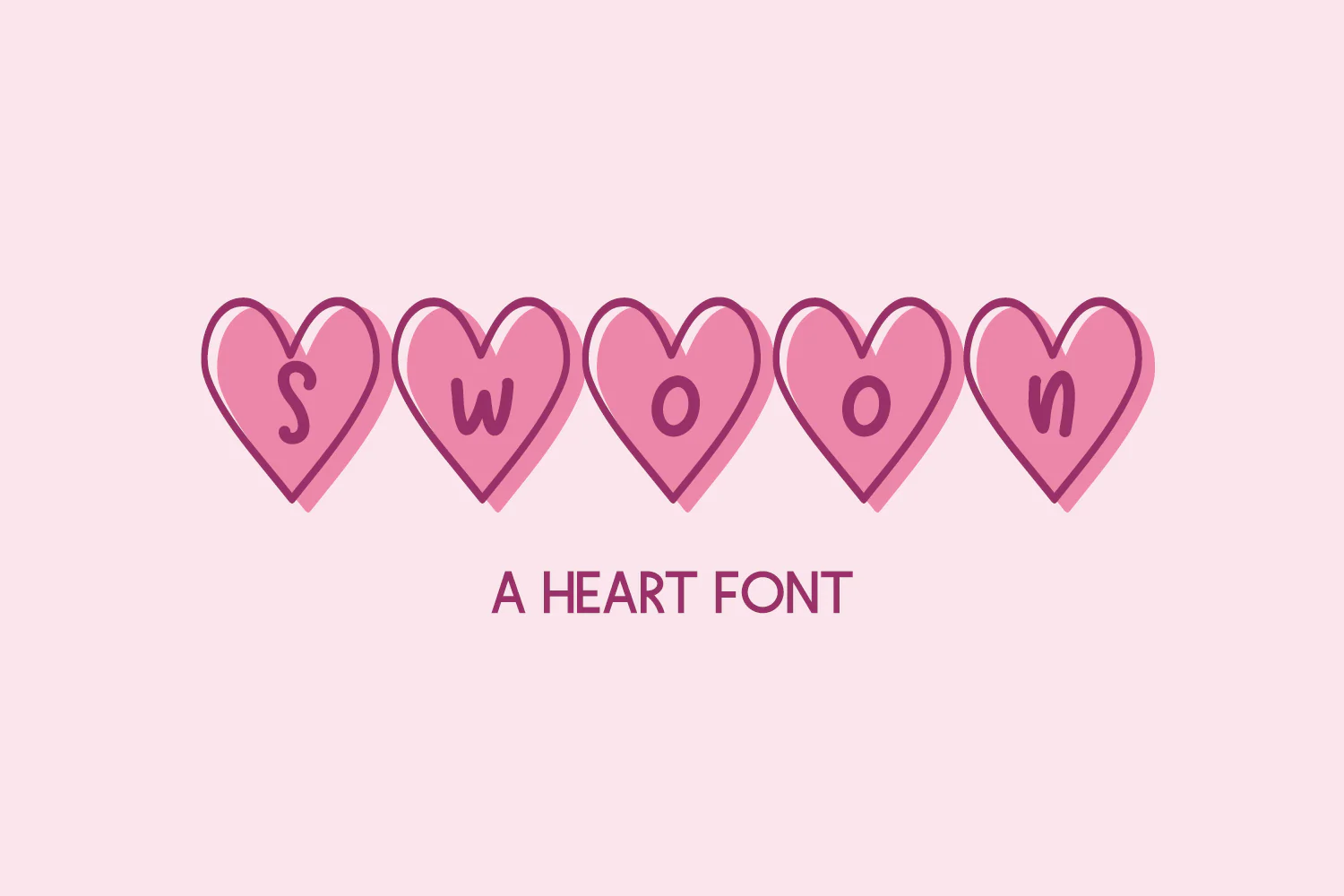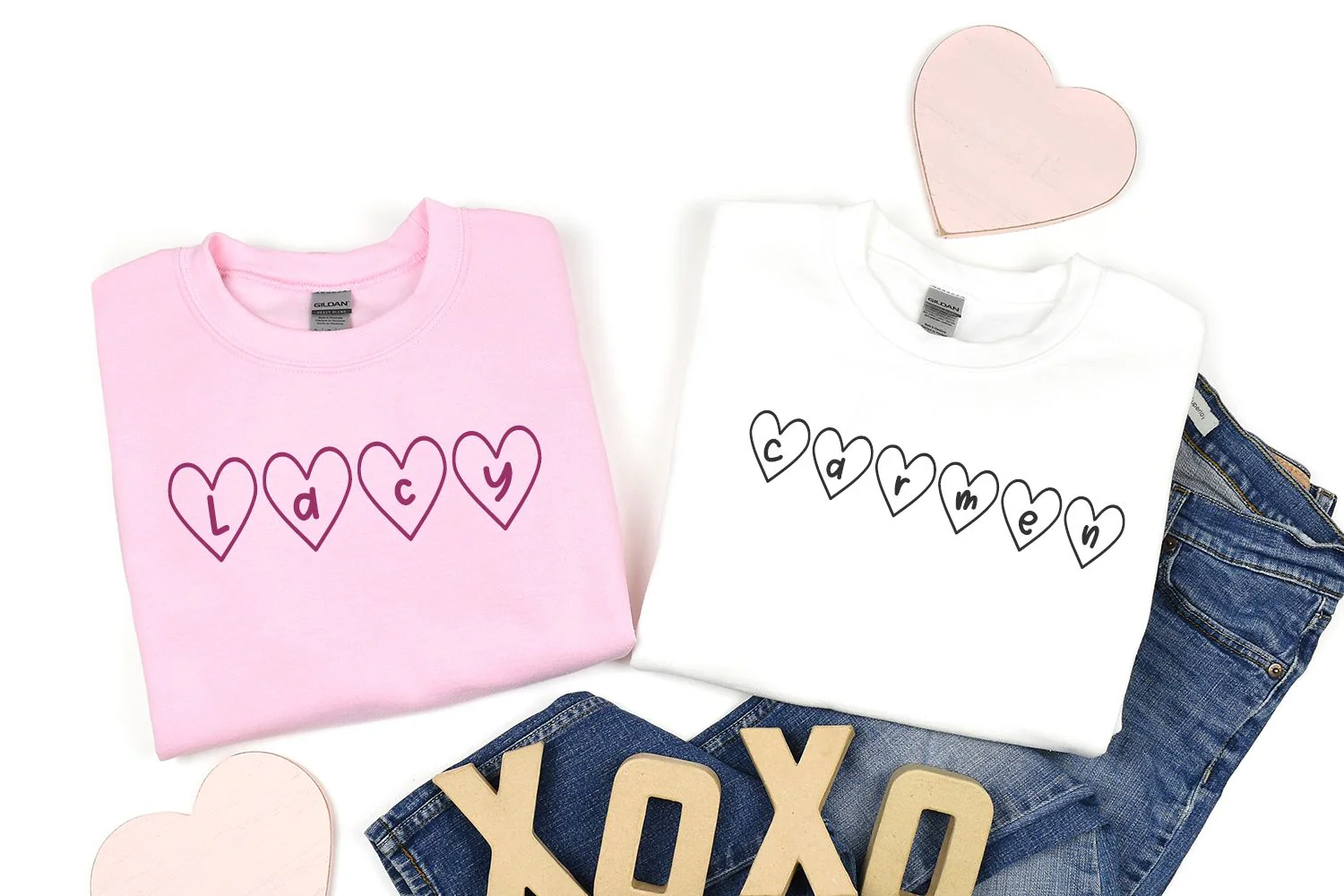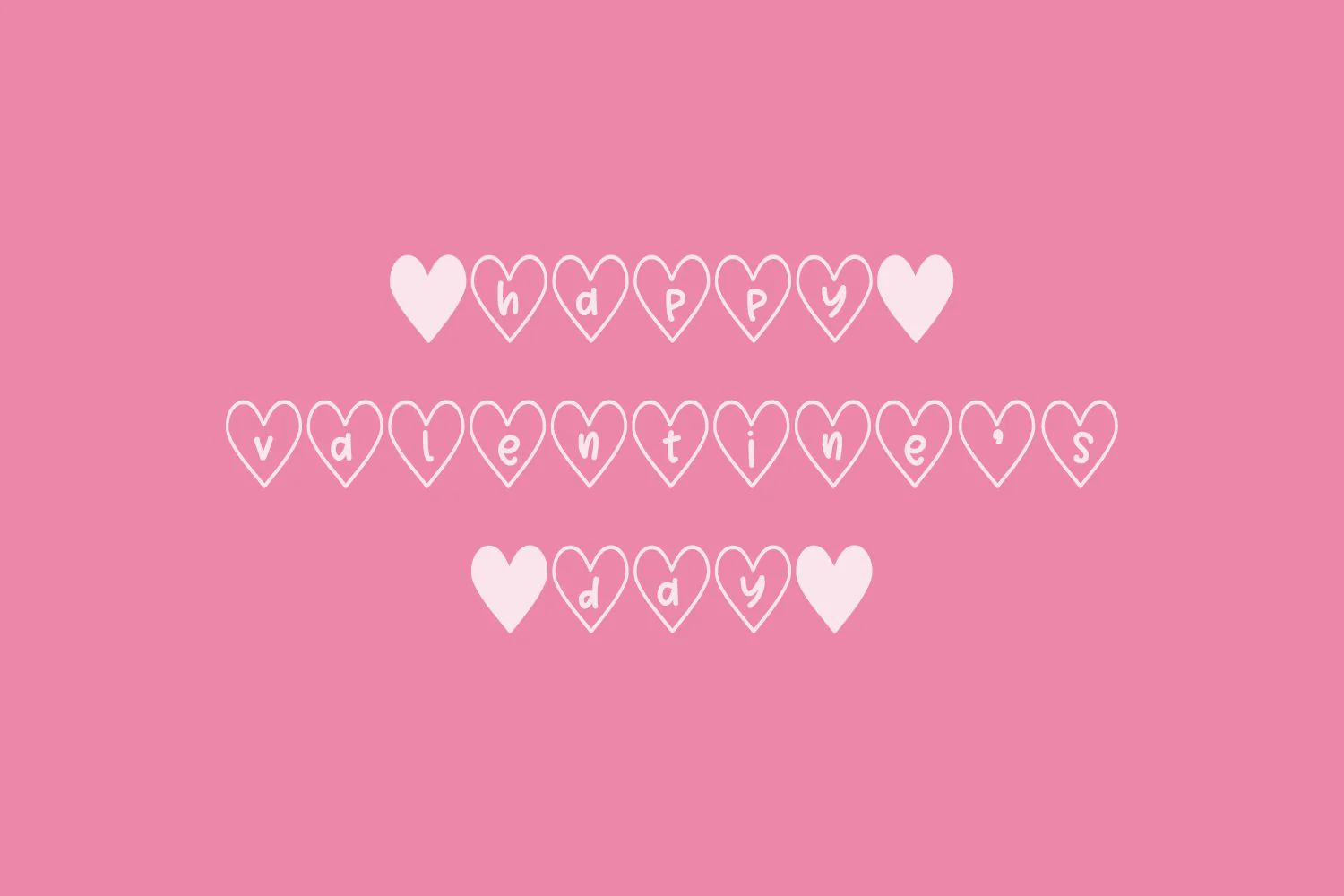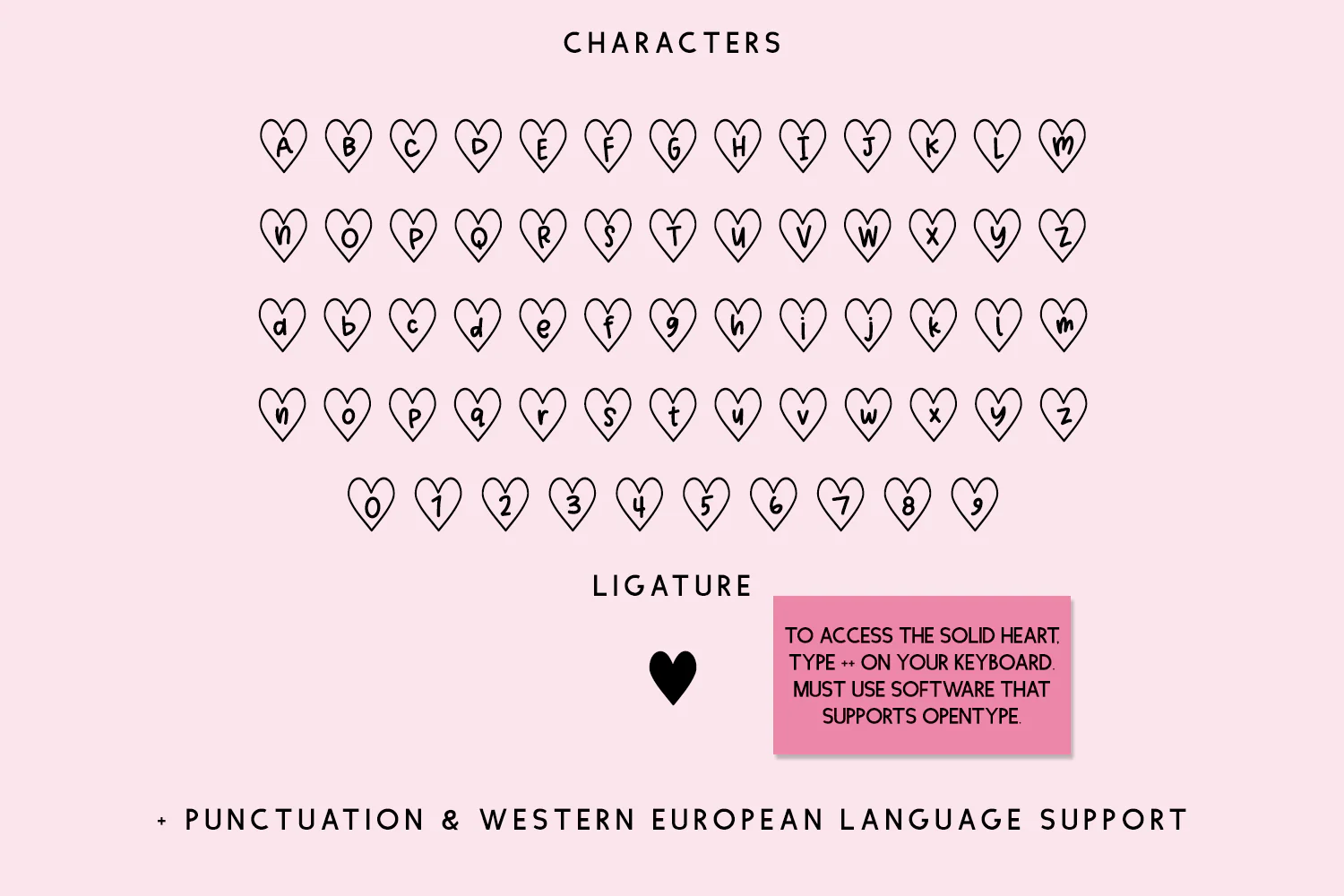
Swoon Heart Font
Say hello to Swoon, an adorable printed sans font in hearts! Swoon is playful & fun, and will be the perfect font for your Valentineās Day or love-themed projects. Bonus! Using OpenType-friendly software like Illustrator or Photoshop, type ++ for a solid heart so that you can layer this font. (Note: You can also use the copy/paste method detailed in my blog post about accessing OpenType features.)
Swoon includes:
- 1 alternate character
- Western European language support